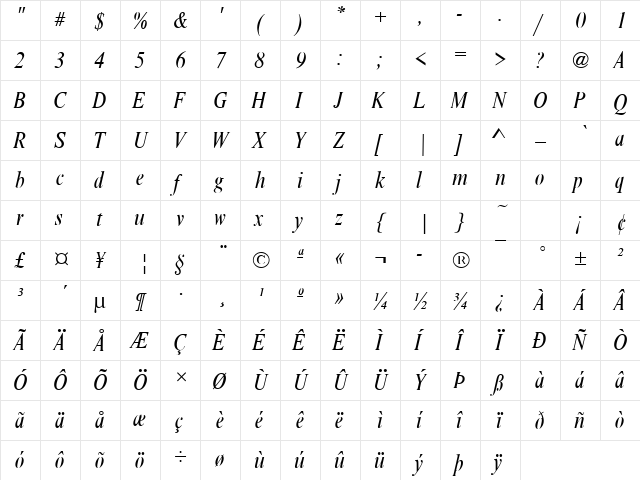
Nimbus Roman Becker No9TCon Italic
Design Context for Nimbus Roman Becker No9TCon Typeface
Nimbus Roman Becker No9TCon is a composed and adaptable typeface that performs quietly and consistently across a wide range of design contexts. Its italic angle brings a sense of urgency and motion to the letterforms.
Pro Tip: Try Nimbus Roman Becker No9TCon for annotation and caption copy alongside an upright companion — the contrast in angle creates a dynamic but ordered typographic system.